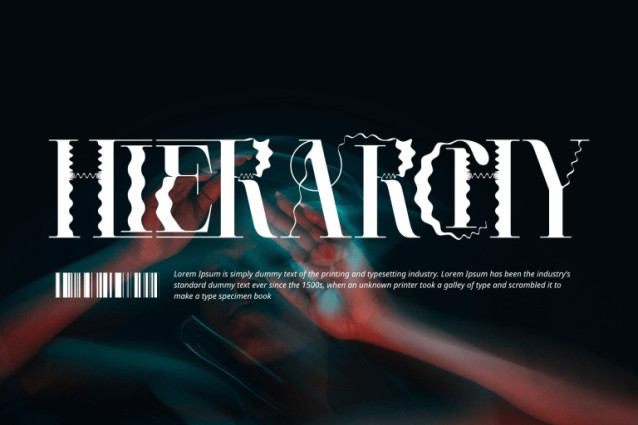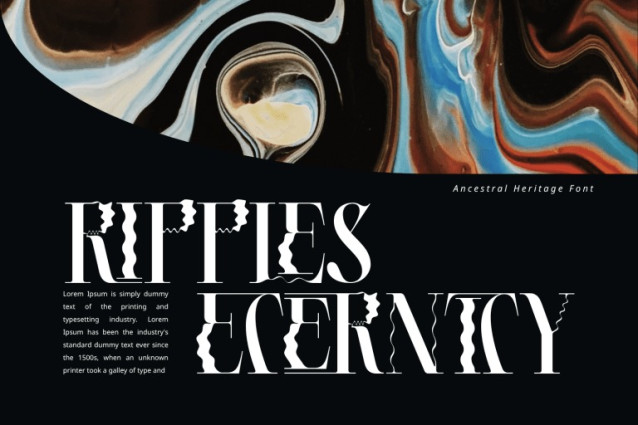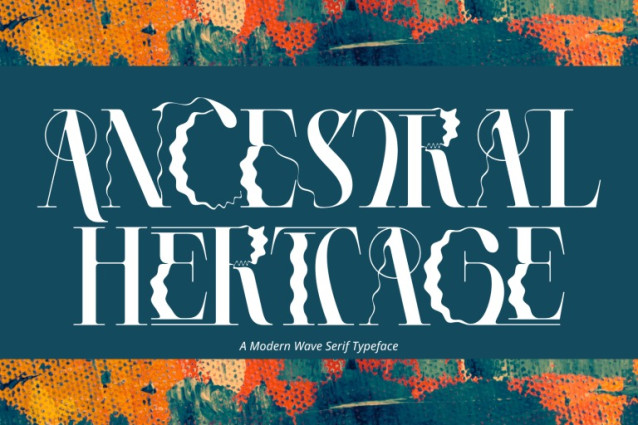
Ancestral Heritage Font
Ancestral Heritage – Distorted Font is an experimental high-contrast serif display font inspired by ancestral forms, organic textures, and refined editorial typography. Featuring elegant serif structures combined with irregular carved details and delicate ornamental lines, this typeface delivers a distinctive balance between classic sophistication and artistic imperfection. Its dramatic letterforms create a strong visual presence, while the organic cut details add depth, movement, and handcrafted character. Ancestral Heritage is perfect for luxury branding, book covers, cultural projects, fashion editorials, posters, packaging, and premium visual identities.
🔤Features:
Uppercase & Lowercase Letters
Around 100 Special Ligatures & Alternates
Accented Characters for multilingual support
🔤About 100 ligatures combined with Stylistic Alternates Font: